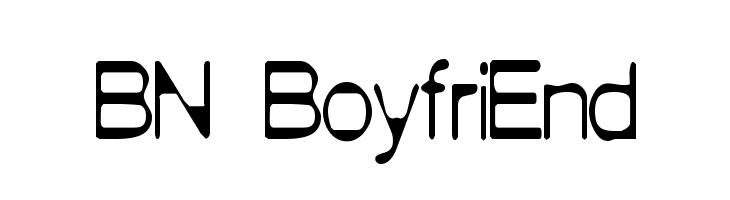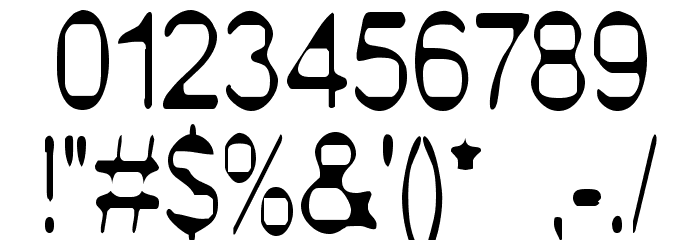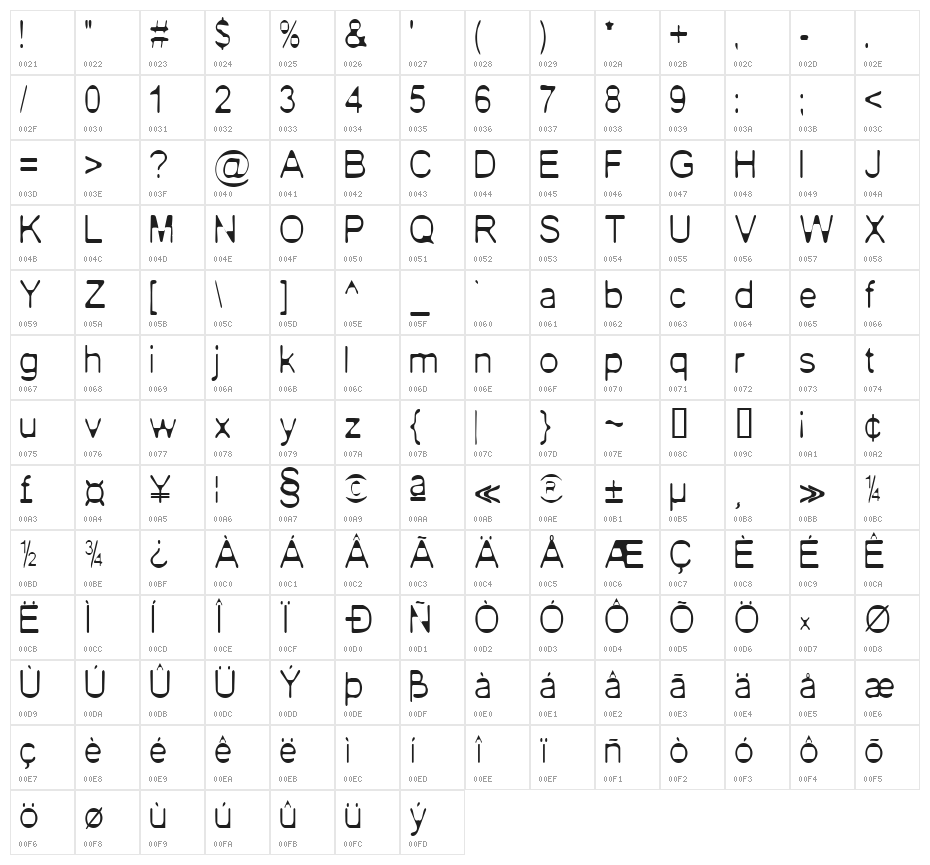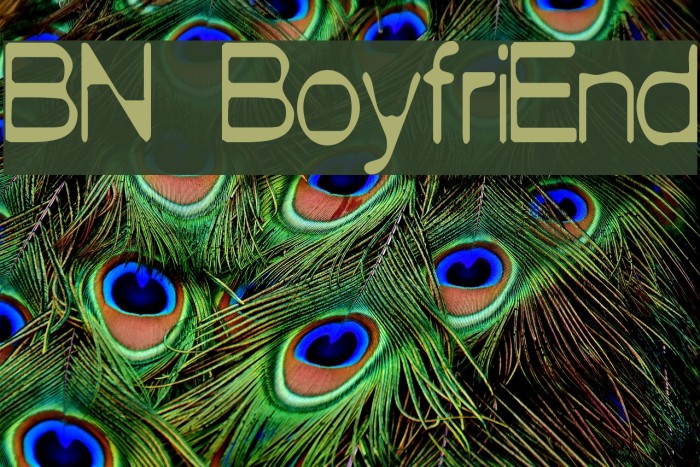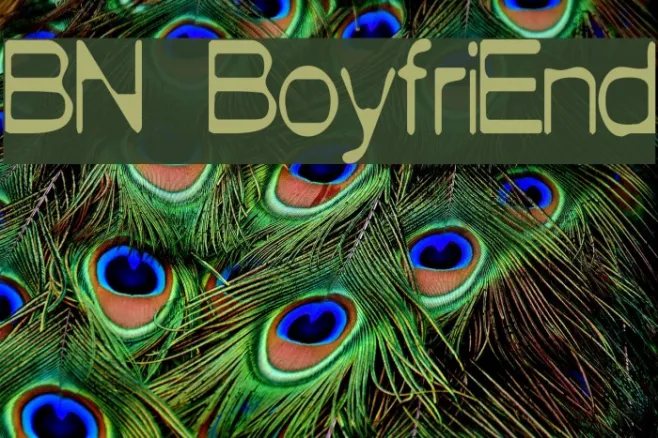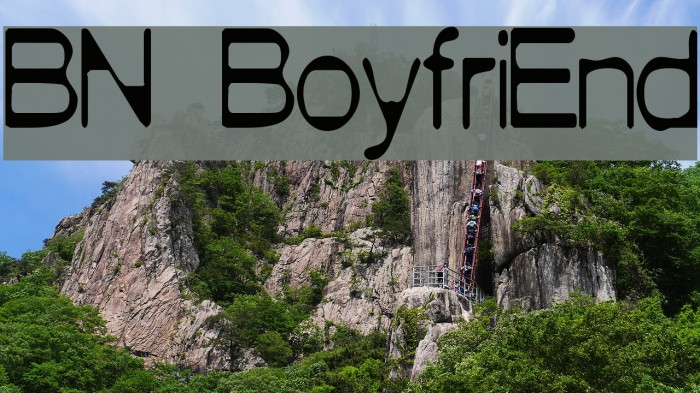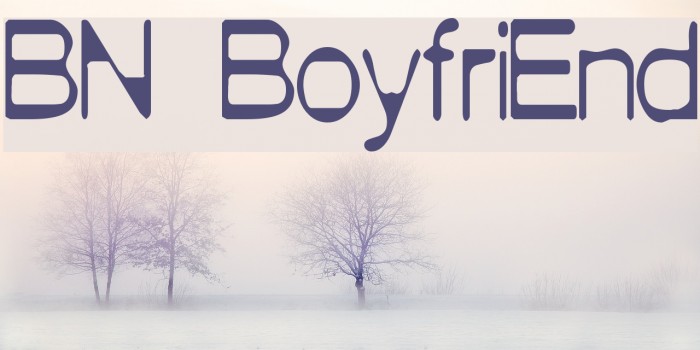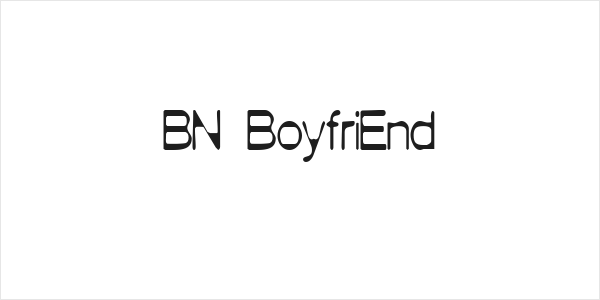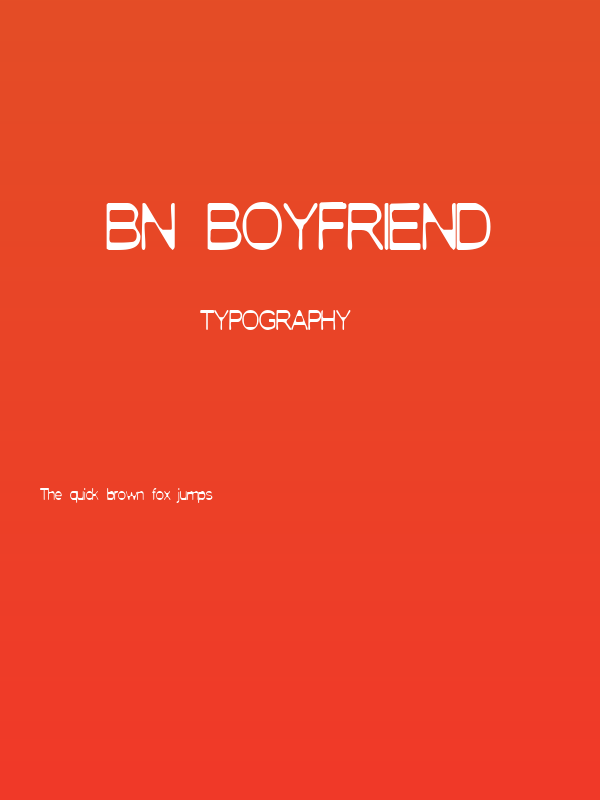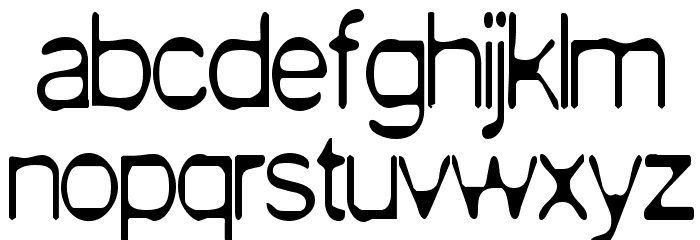
BN BoyfriEnd Font
BN BoyfriEnd Description
This font features a unique and modern design with a playful twist. The uppercase letters are bold and slightly condensed, giving a strong presence, while the lowercase letters maintain a consistent flow with rounded edges. The numbers are clear and distinct, matching the overall style of the alphabet. Special characters are creatively designed, adding to the font's playful nature. The font's style is both contemporary and slightly futuristic, making it suitable for a variety of creative projects.
| Proposed Projects | Ideal for branding, posters, digital media, and creative projects that require a modern and playful touch. |